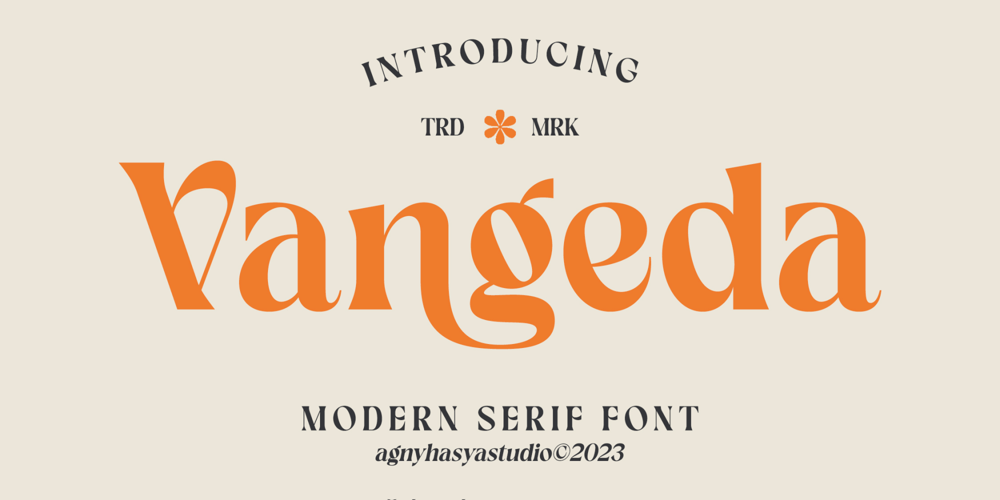
Vangeda Font Family was designed by Firman Maulana and published by Agny Hasya Studio. Vangeda contains 2 styles and family package options. Vangeda is a Modern & Elegant Serif Typeface Font created with 2 (two) styles (regular & italic), and glyph variations like alternates and ligatures. Perfect for your design projects like logos, branding, advertising, product designs, stationery, photography, art quotes, wedding designs, fashion designs, and more.Featured with Uppercase and Lowercase, Numeral and Punctuation, Multilingual Support, and Opentype Features.